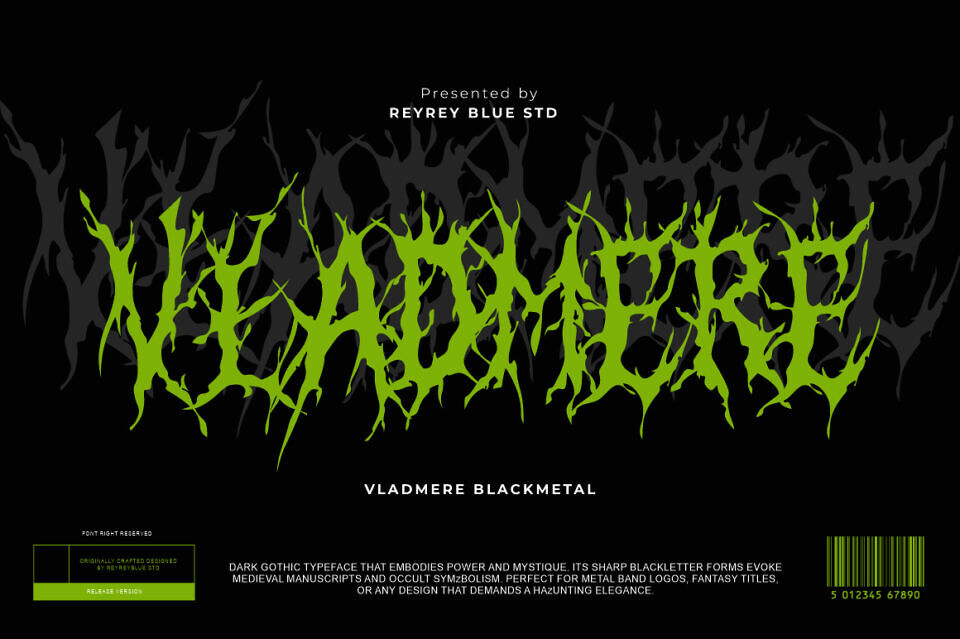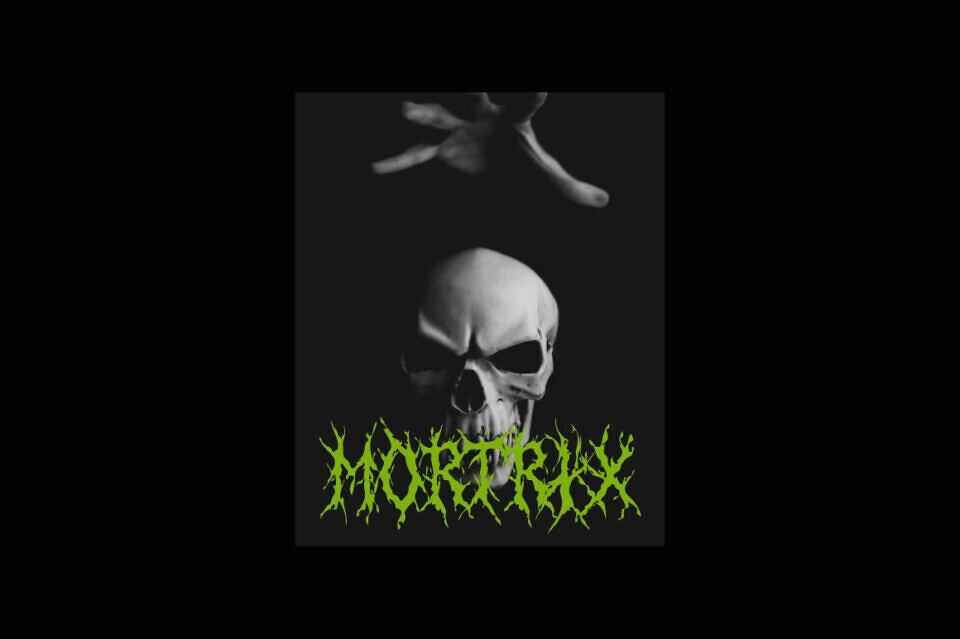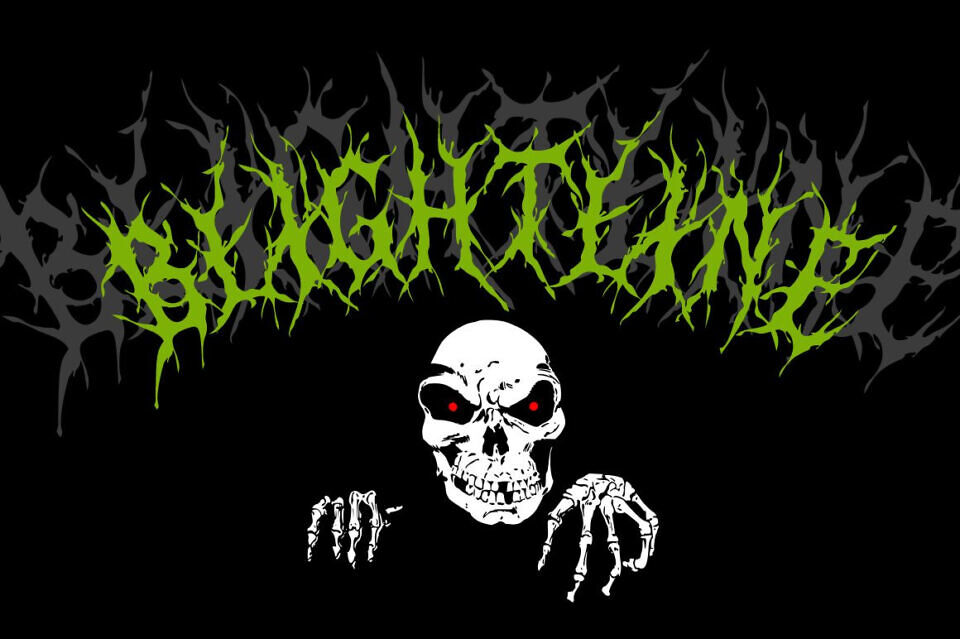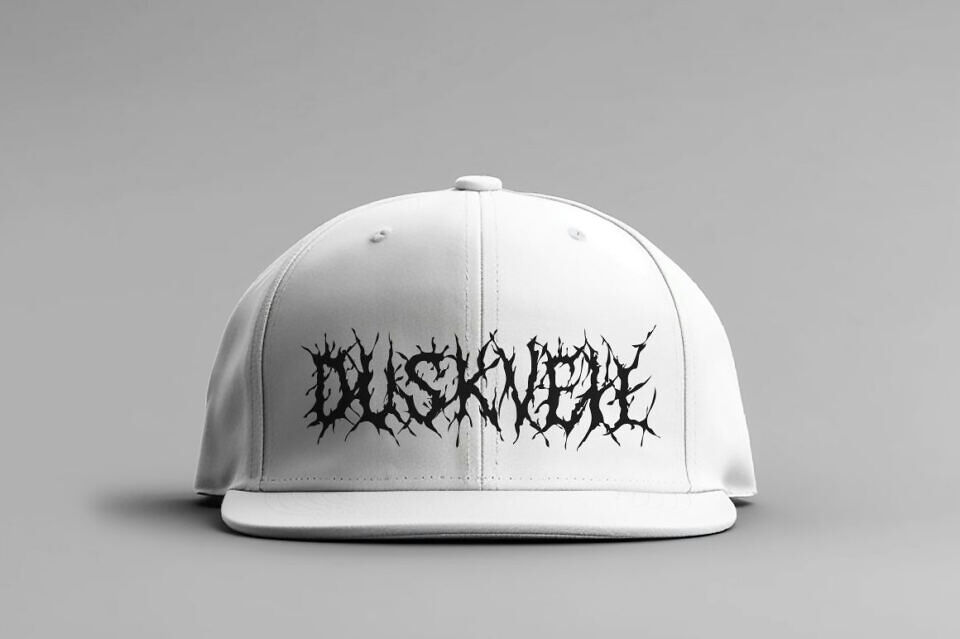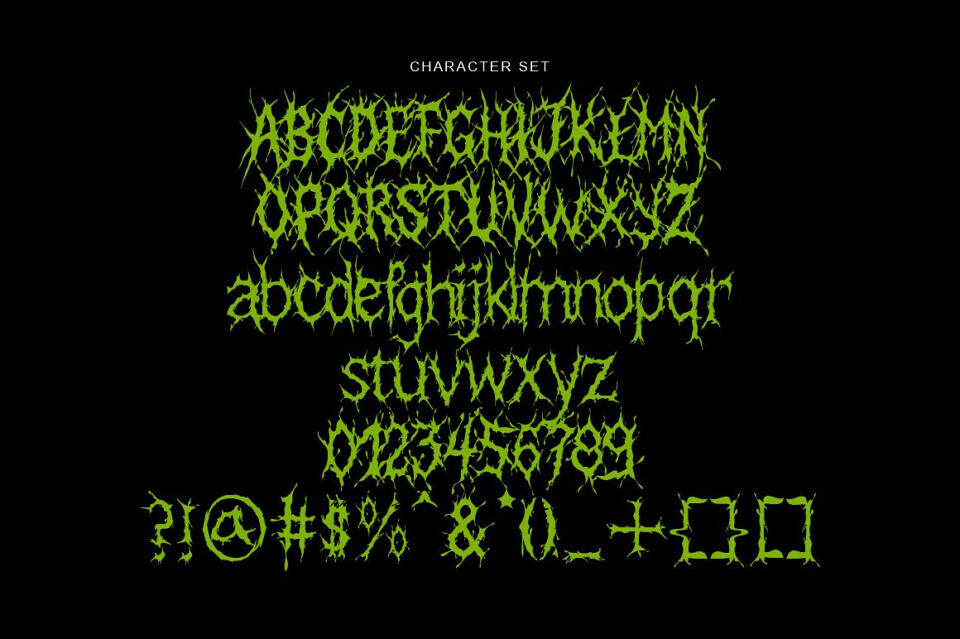
Vladmere Blackmetal is an extreme dark gothic typeface inspired by black metal band logos, medieval blackletter, and occult symbolism. This font features sharp, tangled, root-like letterforms that create a chaotic, mysterious, and aggressive visual impact. Every character feels alive, twisted, and organic — perfect for projects that demand darkness, power, and intensity.
Designed for heavy music culture, Vladmere Blackmetal is ideal for metal band logos, album covers, horror movie titles, fantasy game art, gothic clothing designs, tattoo typography, underground posters, and dark branding projects.